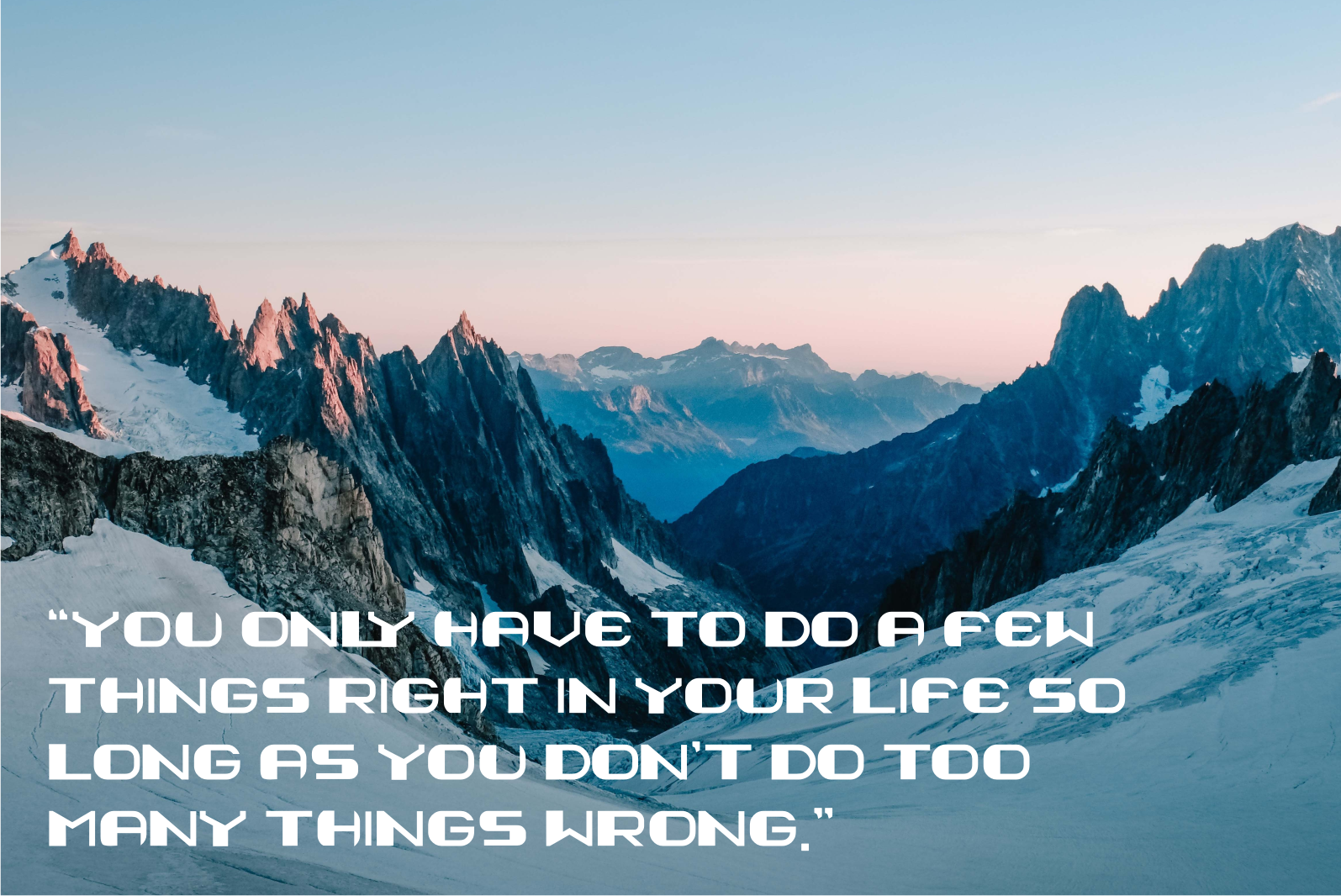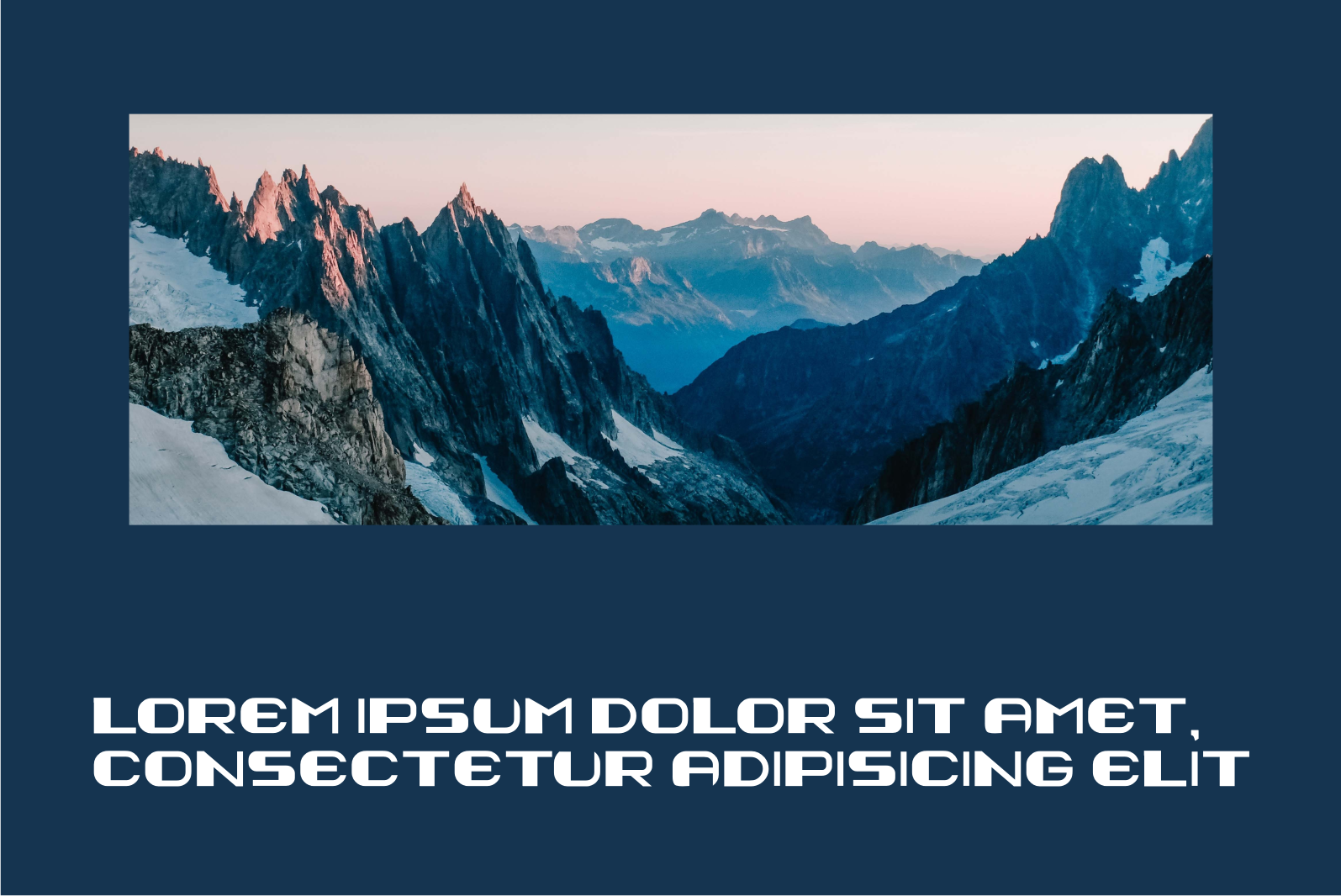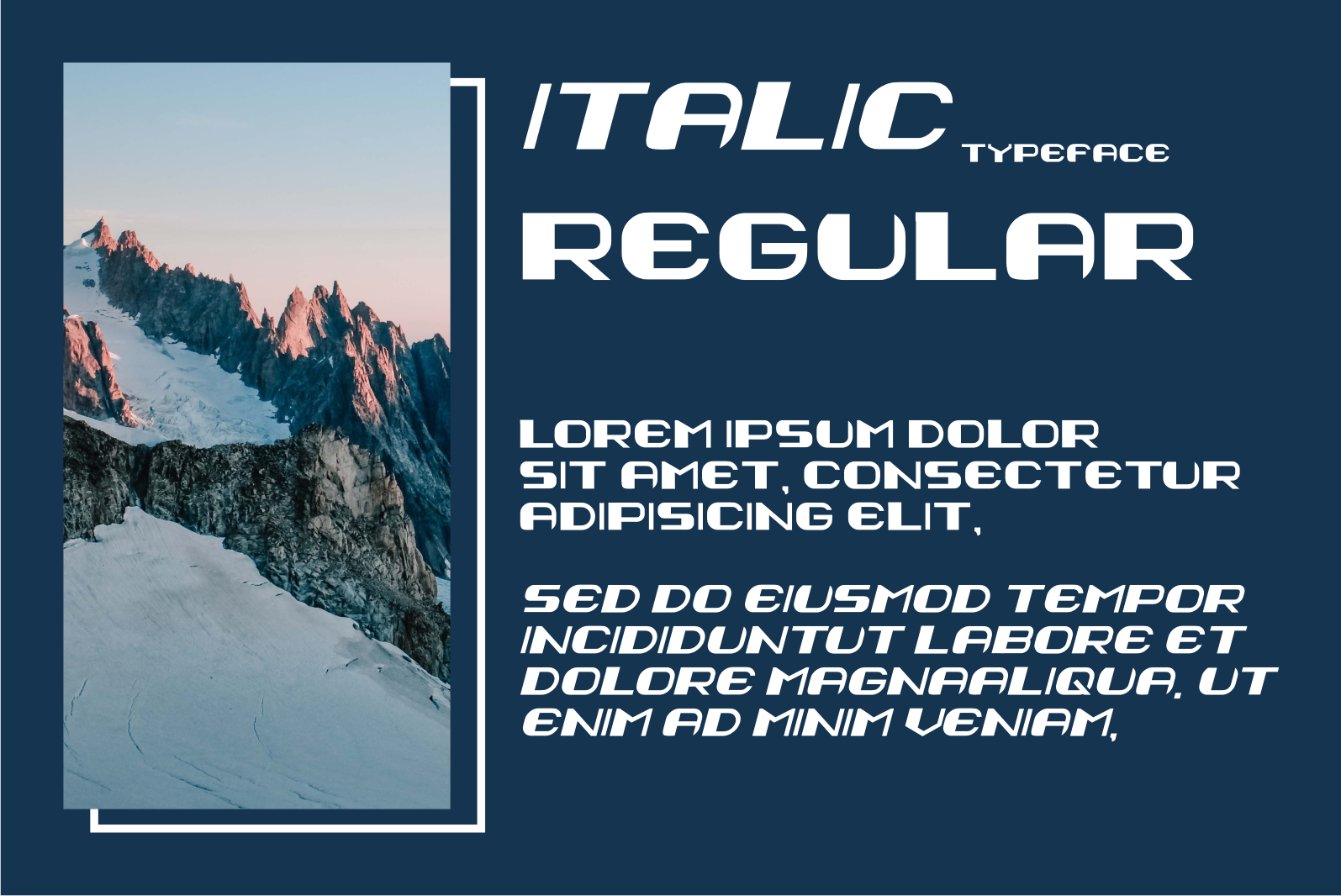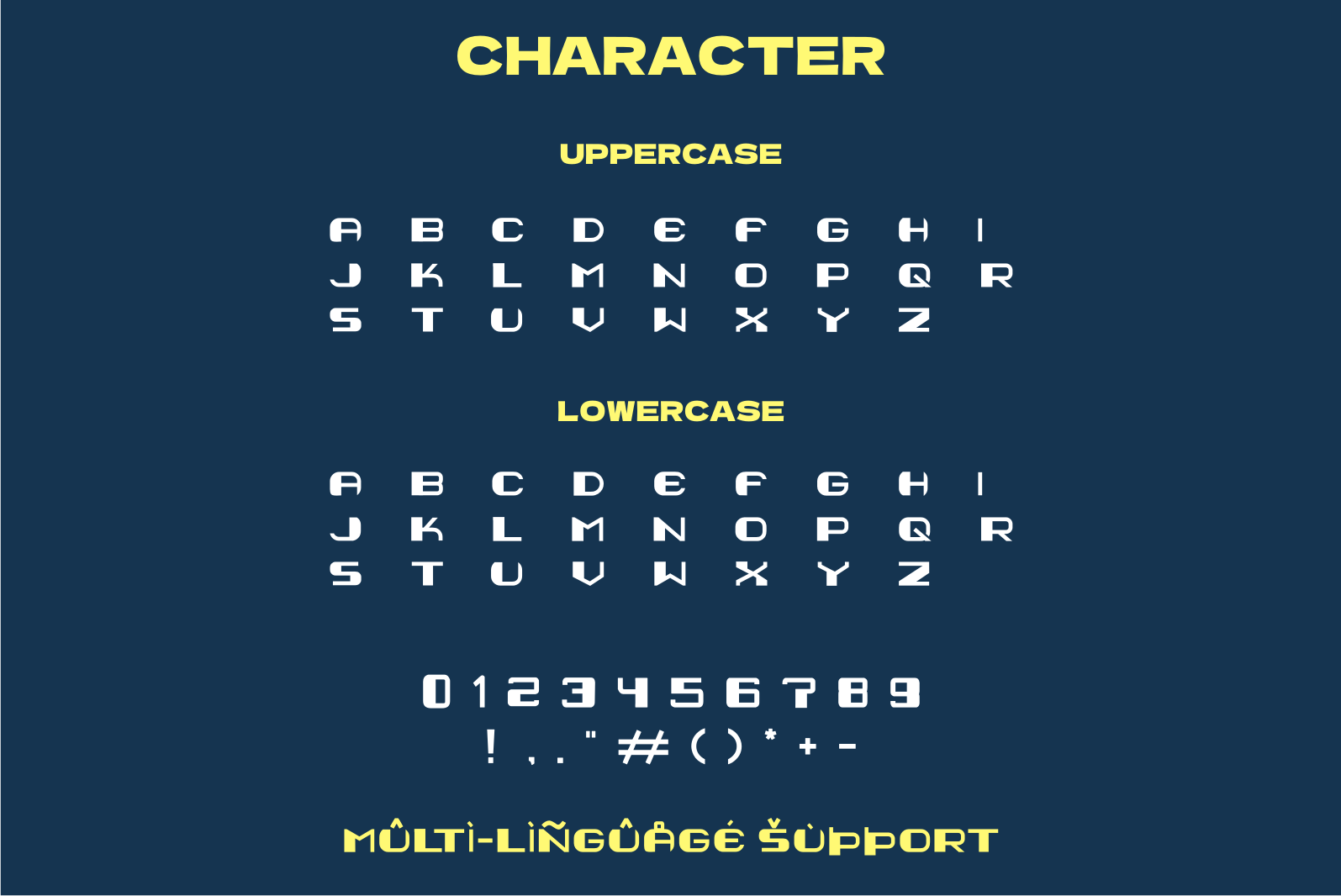
Geoger Font
Geoger Display Font
It’s a cool and robotic-styled display font. This font is ideal for writing web designs, business cards, or pretty much anything else that requires a futuristic touch.